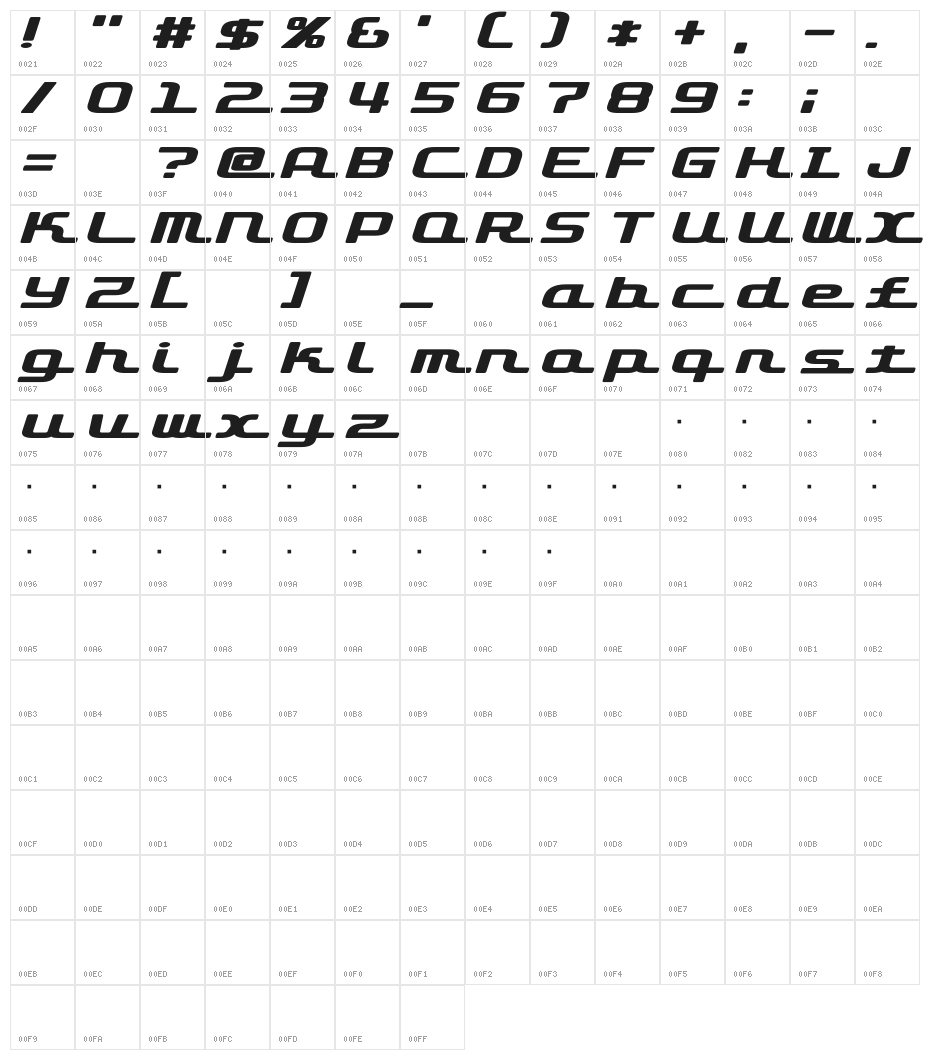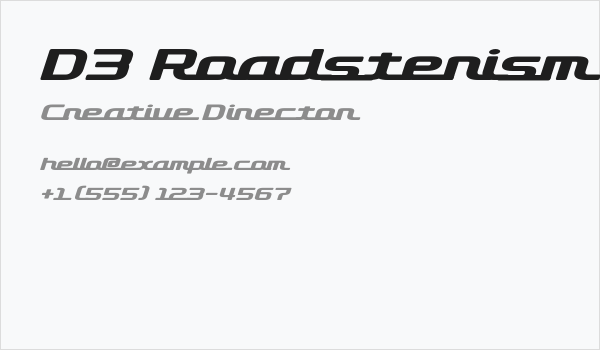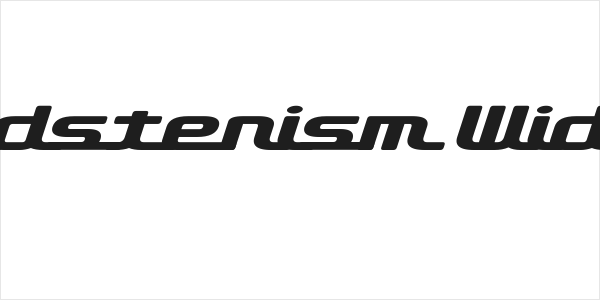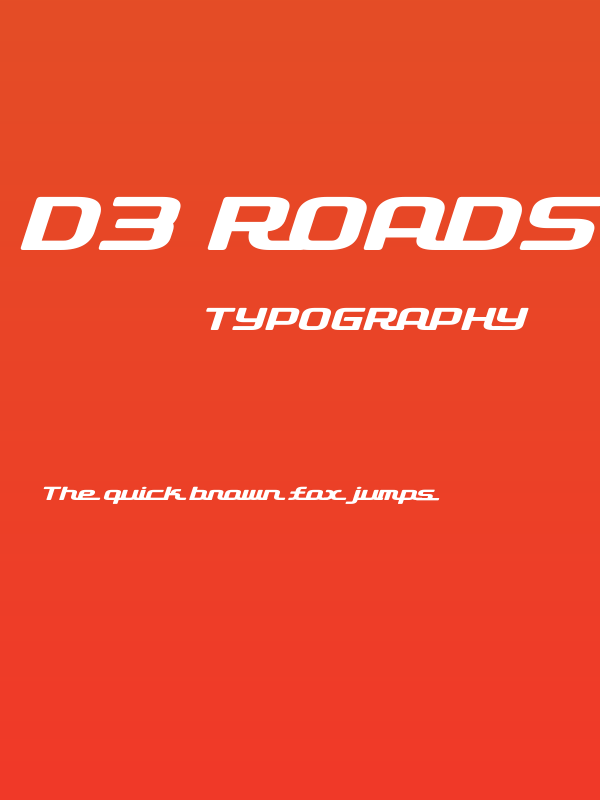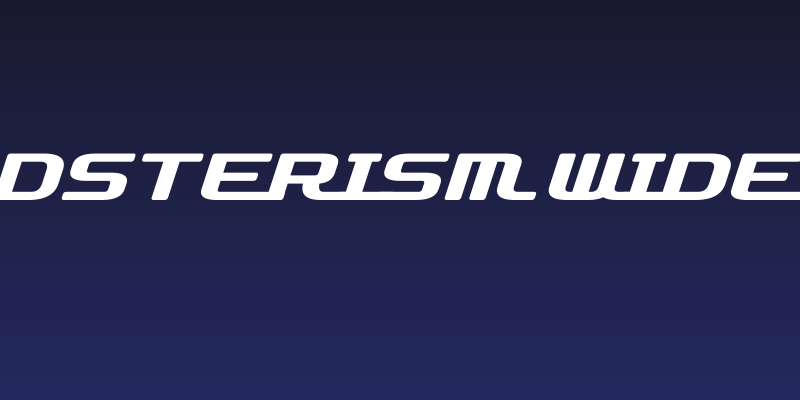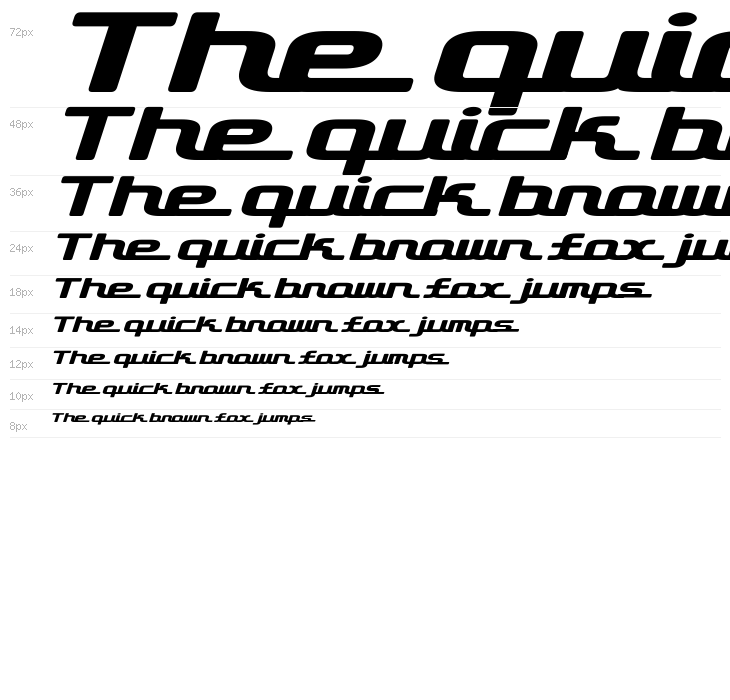
D3 Roadsterism Wide Italic Font
D3 Roadsterism Wide Italic Description
This font features a sleek, modern design with a distinctly italicized and wide stance. The characters are bold and have a futuristic appeal, characterized by smooth curves and sharp edges. The uppercase letters are uniform in height, while the lowercase letters maintain a consistent flow, enhancing readability. The numerals are distinct and align well with the overall style, making them suitable for digital displays. Special characters are crafted with the same attention to detail, ensuring they integrate seamlessly with the rest of the font. The design is both dynamic and versatile, making it suitable for a variety of applications.
| Use Case | Headlines, Logos, Digital Displays |
| Proposed Projects | Ideal for automotive branding, tech startups, video game titles, and futuristic-themed designs. |